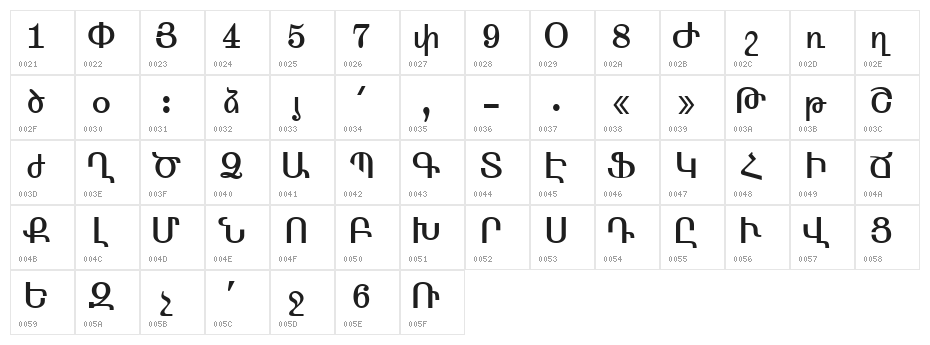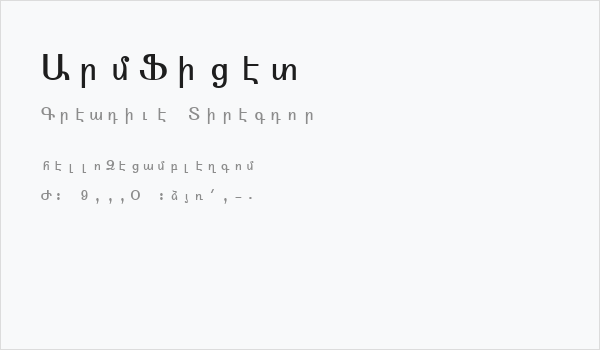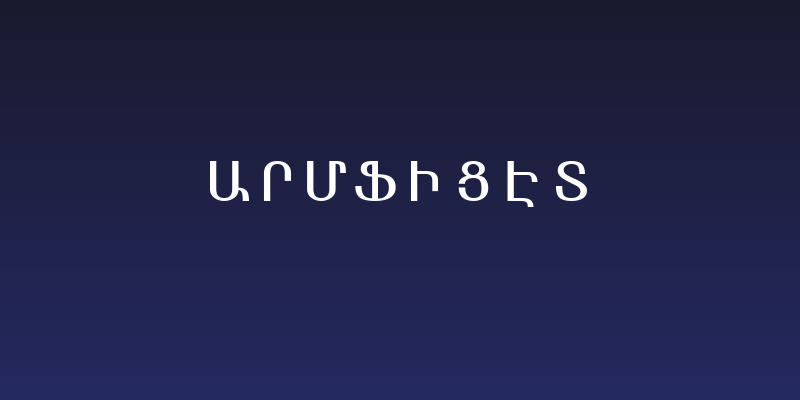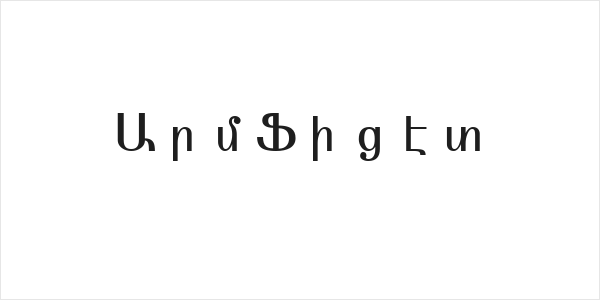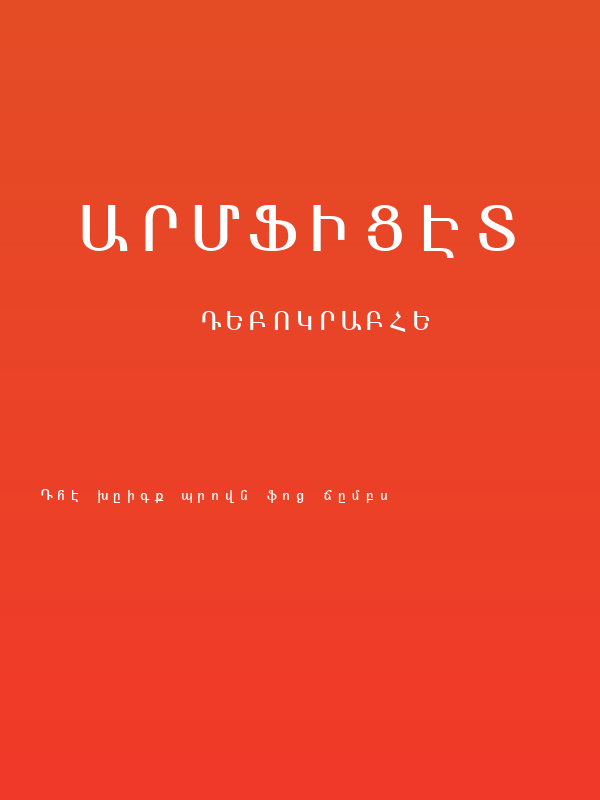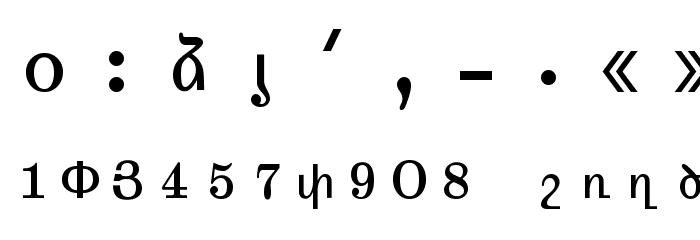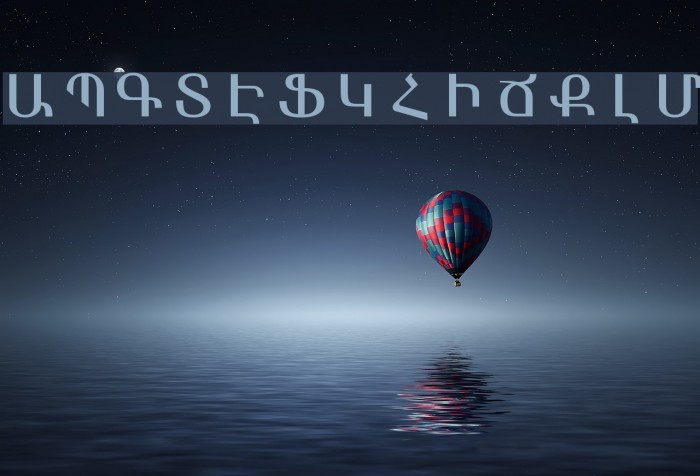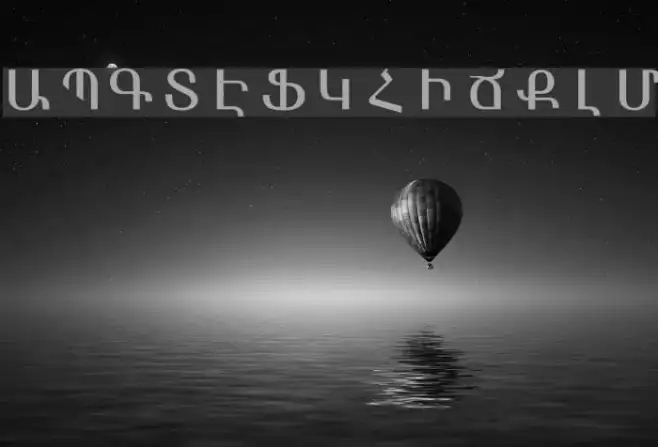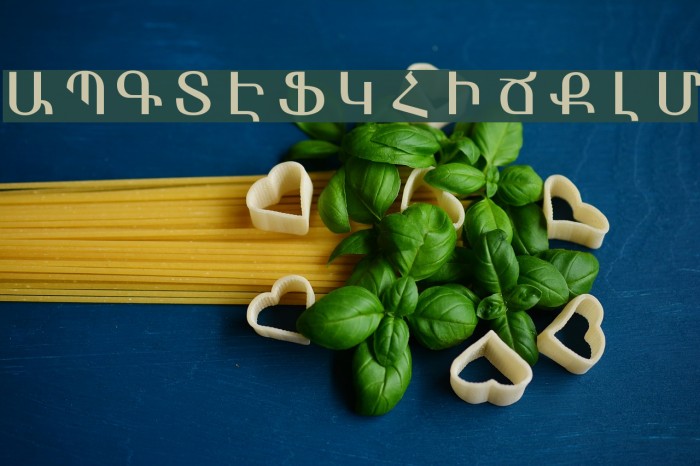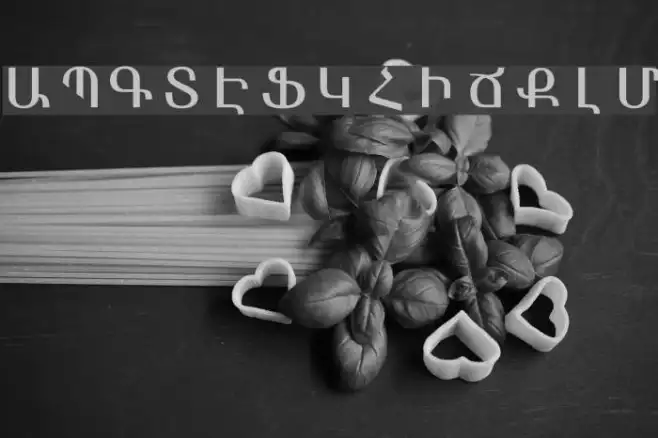
ArmFixed Font
ArmFixed Description
This font features a distinct and modern design with a unique blend of geometric and organic shapes. The uppercase letters are bold and structured, with a slight curvature that adds a touch of elegance. The lowercase letters maintain a consistent style, offering a harmonious flow with slightly rounded edges. Numbers are clear and legible, making them suitable for various applications. The special characters are creatively designed, adding a playful yet sophisticated element to the overall appearance. This font is versatile, offering a contemporary look that can be adapted to a wide range of design projects.